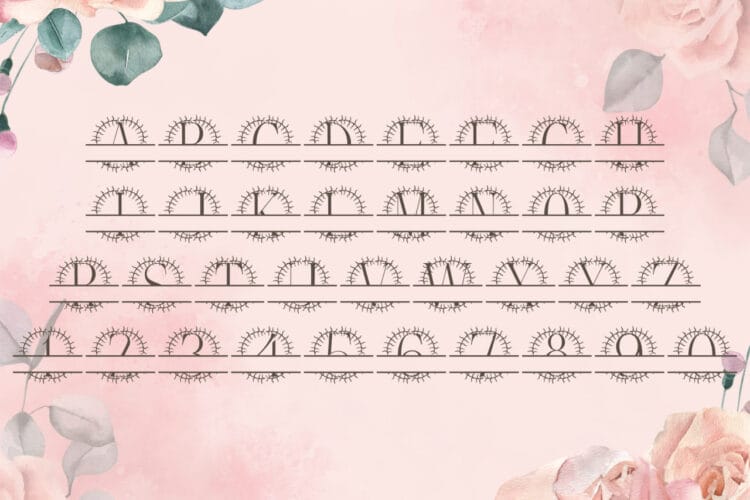
Meet Frondora Split Monogram Font
Frondora Split Monogram transforms initials into elegant frond-inspired emblems with a clean split center for names or dates. The design blends flowing botanical details with balanced structure, creating monograms that feel natural, refined, and timeless. Each letter stays clear at any size, so small tags remain readable while larger designs look polished and ceremony-ready. Use Frondora Split for wedding suites, tropical or nature-inspired branding, stationery, keepsake gifts, and luxury packaging. As a result, your monograms feel personal, organic, and beautifully composed.
Fast layouts with the Frondora Split Monogram Font
Start with a bold initial and place the name or date in the split center. After that, keep extra text minimal so the frond details remain the focus. Because Frondora Split holds its shape at small sizes, labels, stickers, cards, and favor tags stay clean and readable. In addition, it pairs beautifully with soft serifs, light scripts, or clean sans serifs for supporting text. Finally, save color palettes like sage and cream, olive and ivory, deep green and linen, or charcoal and soft gold to reuse across product lines.
Creative uses and quick wins
Wedding monograms, invitation covers, and ceremony signage
Place cards, table numbers, and favor tags
Logo seals, certificates, and boutique brand marks
Packaging labels for candles, soap, tea, perfume, and gift boxes
Alphabet characters (A–Z)
Numbers (0–9)
Design tips for Frondora Split Monogram Font
Keep the monogram as the hero and use a separate font for any text outside the split area. Also, give it enough breathing room so fine frond details stay crisp at smaller sizes. For a premium finish, try foil stamping, embossing, or letterpress on thick or textured stock. Finally, export at 300 DPI for print and at 2× size for web so edges remain smooth everywhere.